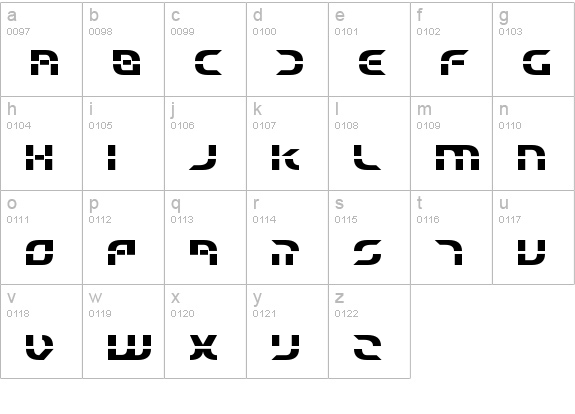
Starfighter Beta Bold is a strong, high-contrast variant in the Starfighter typeface family \xE2\x80\x94 well suited to headlines, attention-grabbing titles, and strong calls-to-action.
Introducing Starfighter Beta Bold font, a sleek and futuristic typeface designed to make your designs stand out from the crowd. This bold and eye-catching font is perfect for adding a modern touch to any project, from posters to logos to websites. With its sharp lines and distinctive style, Starfighter Beta Bold is sure to make a statement. The best part? Starfighter Beta Bold font is completely free to download at FontsMarket.com. That's right, you can add this amazing font to your collection without spending a dime. So why wait? Download Starfighter Beta Bold today and take your designs to the next level!